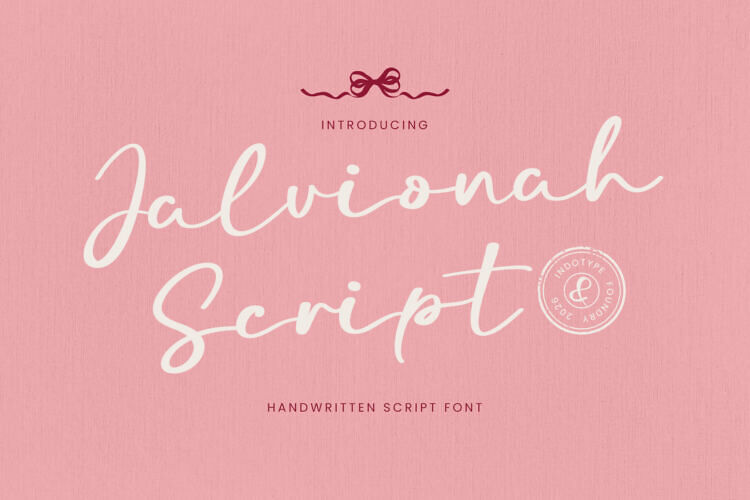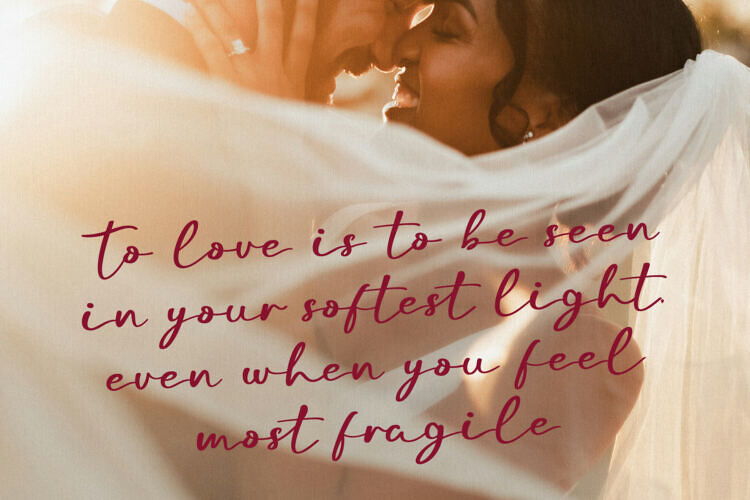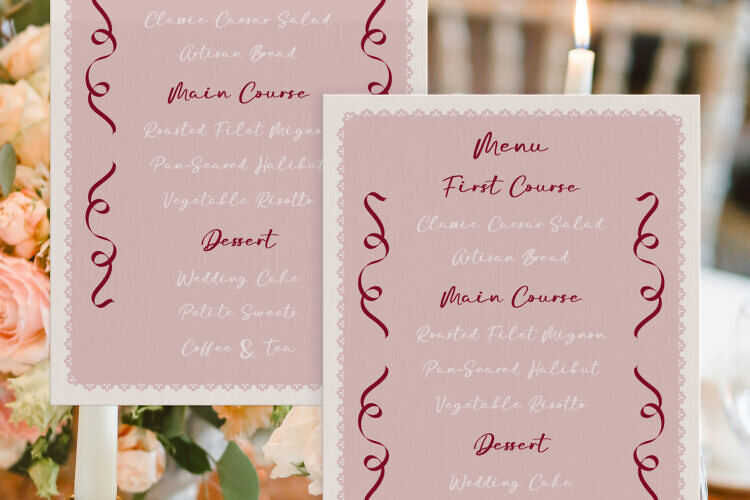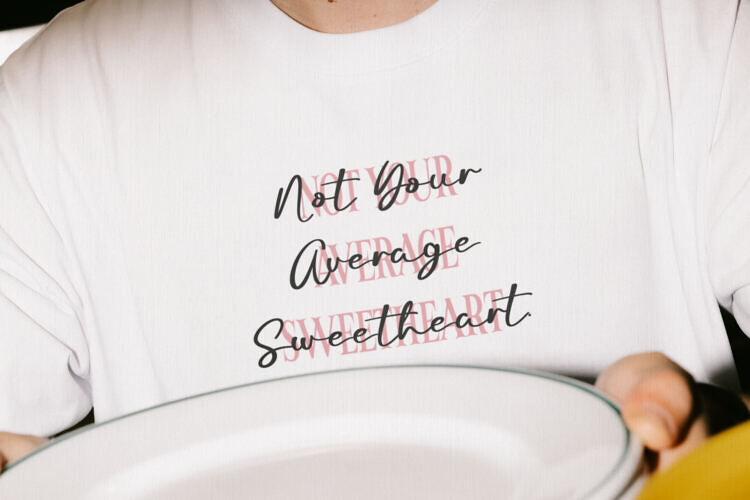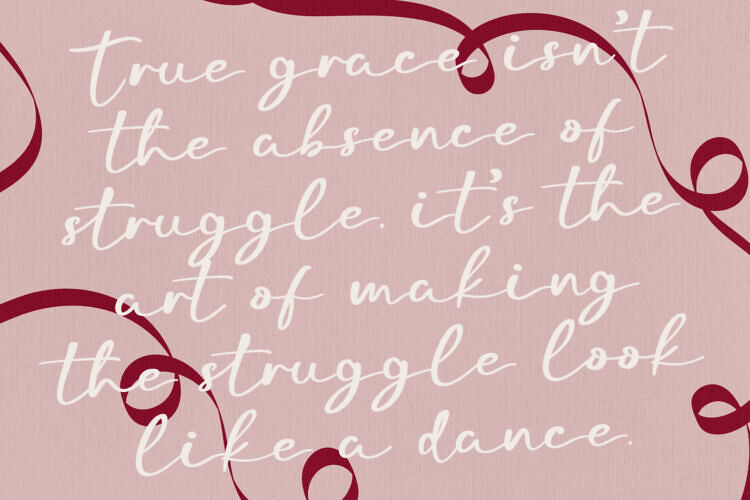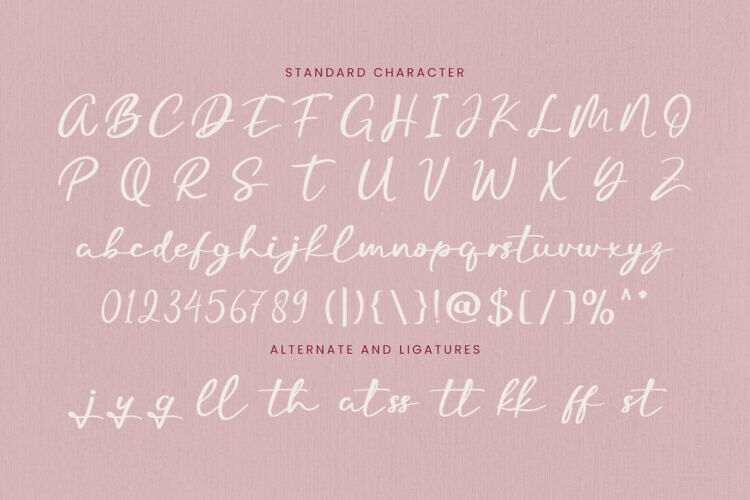
Jalvionah is an exquisitely crafted handwritten script font that embodies grace, sophistication, and timeless beauty. Its fluid, connected letterforms feature elegant swashes, delicate terminals, and a natural variation in stroke weight that mimics the artistry of pointed pen calligraphy.
This elegant font blends organic flair with refined precision, exuding a sense of luxury and personal touch. Suitable for high-end projects, it’s perfect for wedding invitations, fashion branding, and designs that require sophistication. Adding a bespoke feel to logos, packaging, and stationery, it transforms text into artistic masterpieces, conveying elegance and craftsmanship.